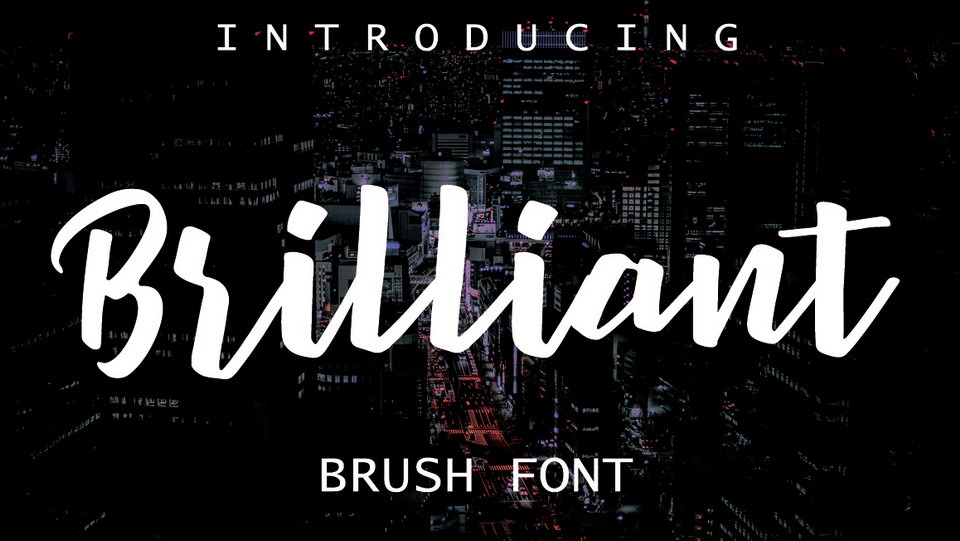
Download Brilliant font, a bold and contrast hand lettered brush script. Perfectly suits for anything from promotional material and handwritten quotes, to product packaging, merchandise and branding projects.